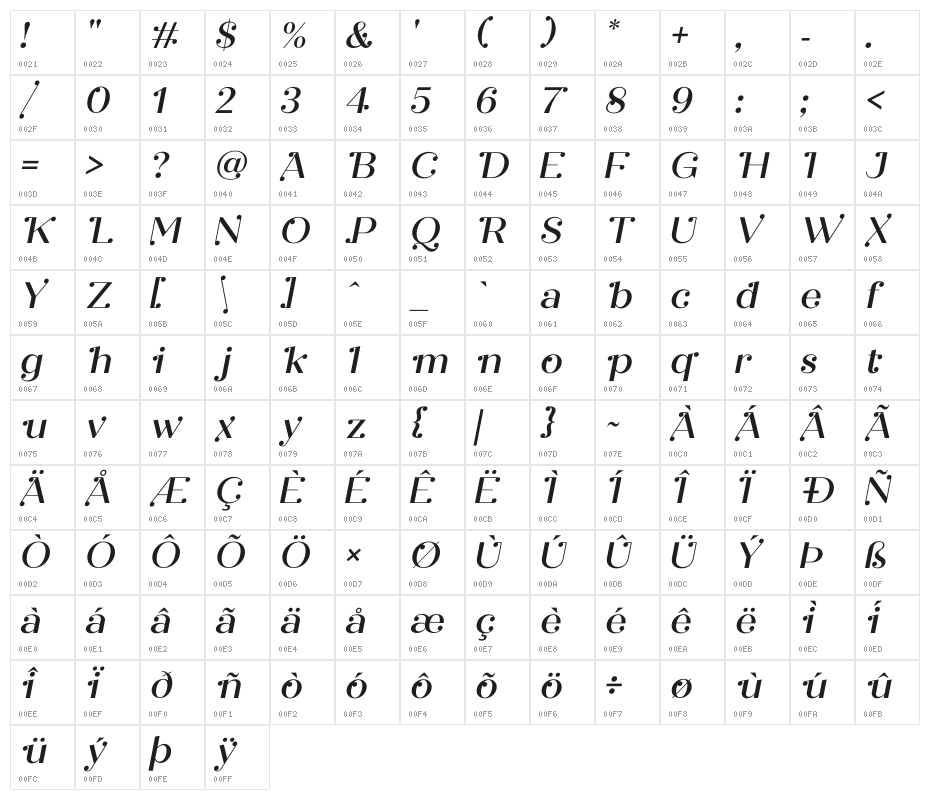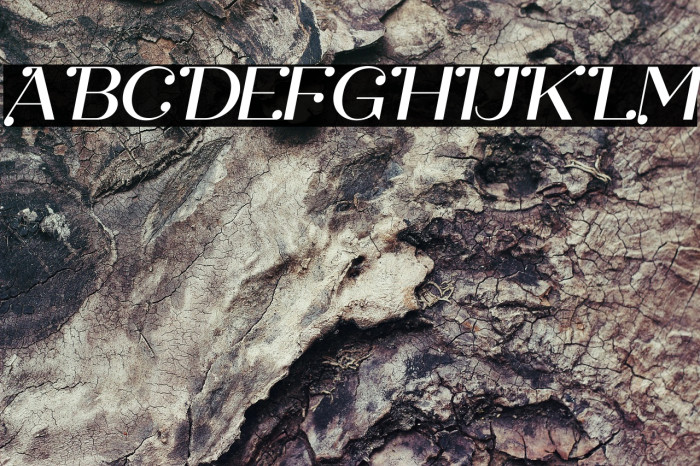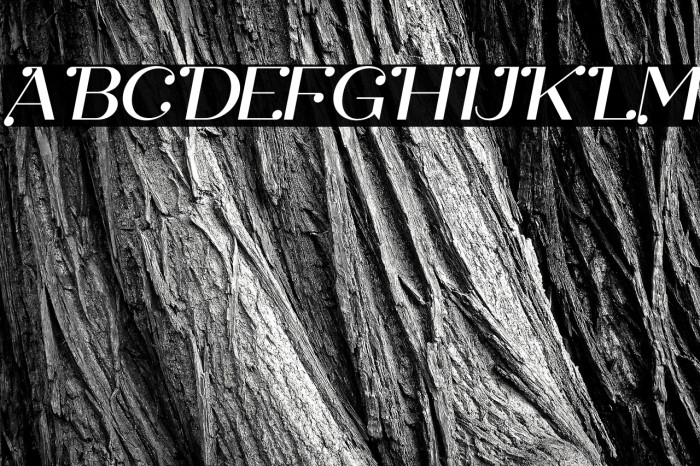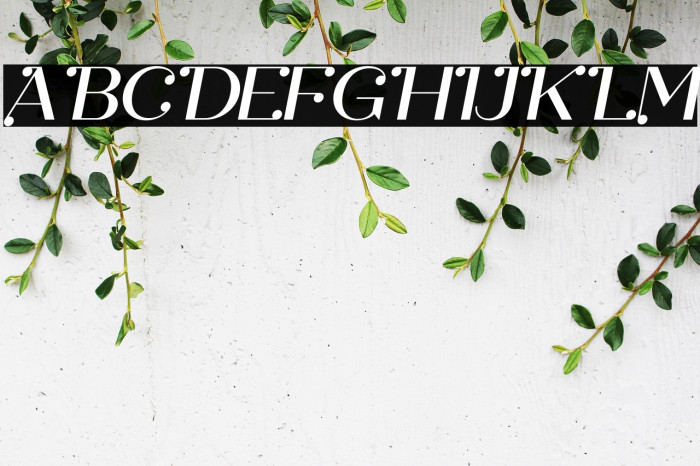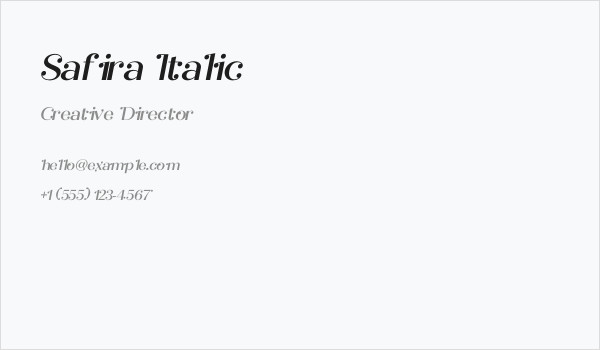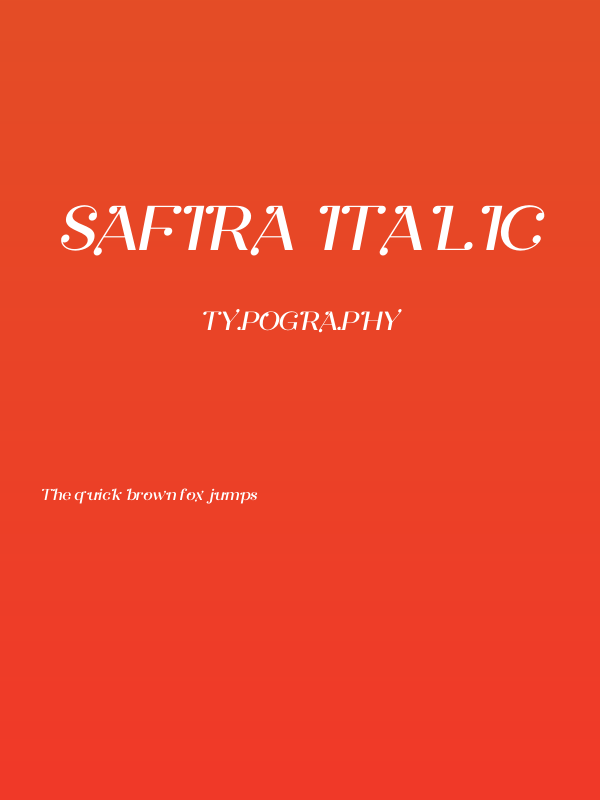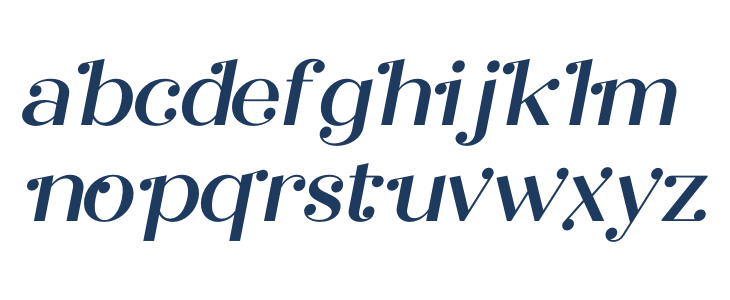
Safira Italic Font
Safira Italic Description
This font features a distinctive italic style with elegant curves and a sophisticated flair. Each character is adorned with unique, rounded terminals that add a touch of playfulness to its overall appearance. The uppercase letters are bold and commanding, while the lowercase letters maintain a graceful flow, making it versatile for various design needs. The numerals are consistent with the font's style, offering a harmonious look across all characters. Special characters are crafted with the same attention to detail, ensuring a cohesive aesthetic throughout.
| Proposed Projects | Ideal for luxury branding, fashion magazines, elegant invitations, and artistic posters. |